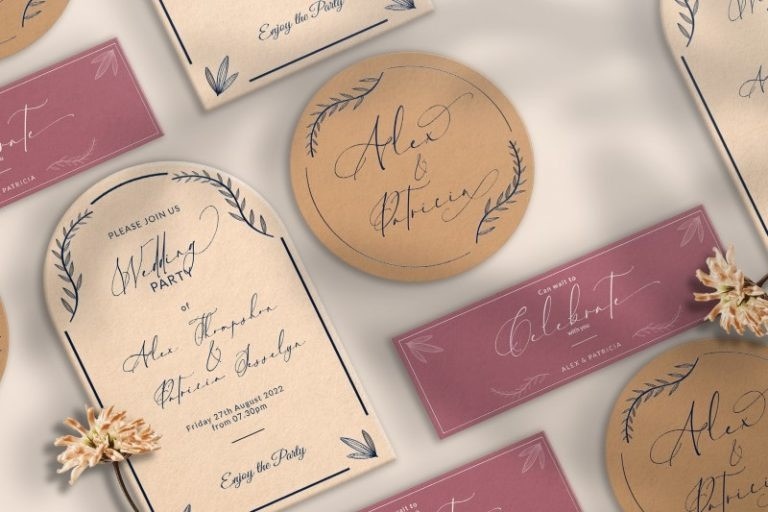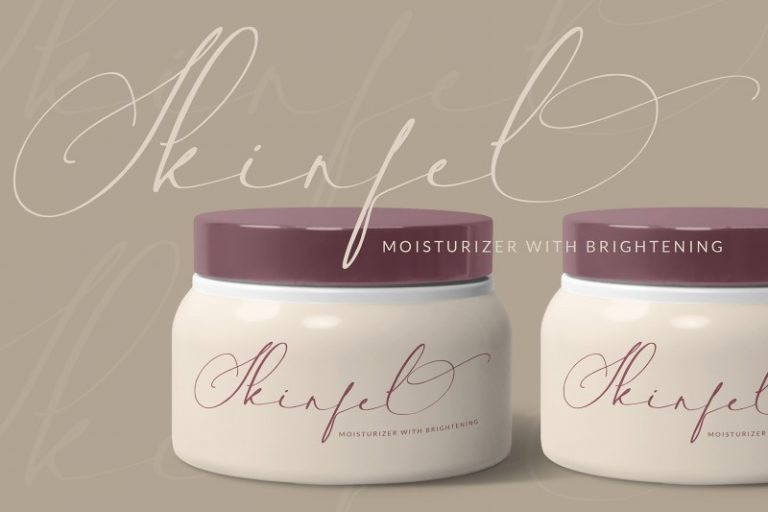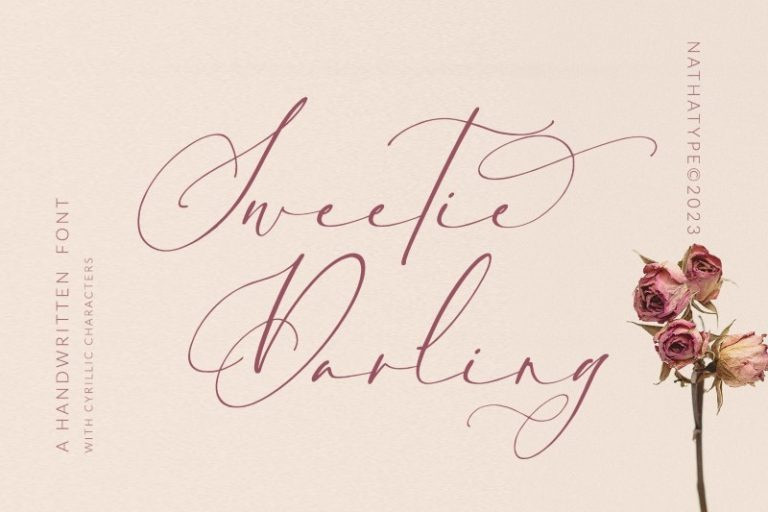
Sweetie Darling Font
Sweetie Darling Font is a cursive-style handwriting script font. Like other cursive font designs, the letters are interconnected, but another character of this font is that the letters have high contrasts in curved edges to beautify the display. Due to the seemingly complex font style details to add the font’s legibility, it is suggested to apply this font for big text sizes. Additionally, you can enjoy the available features here.